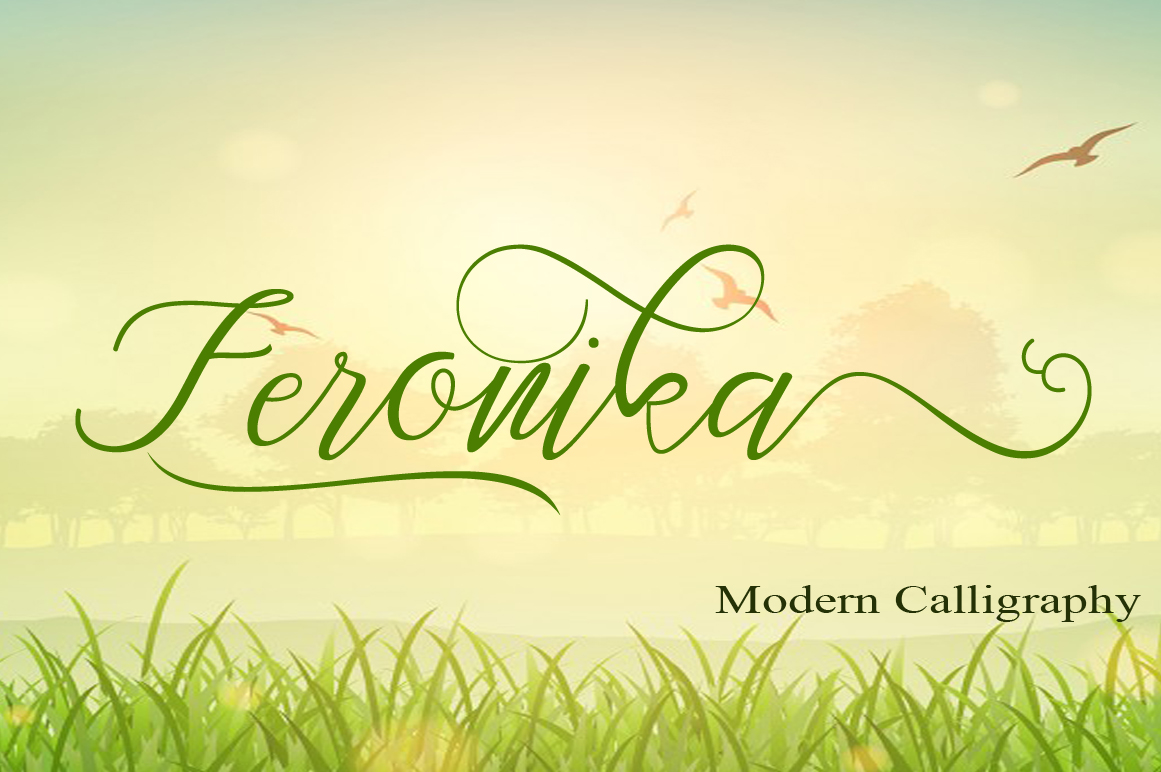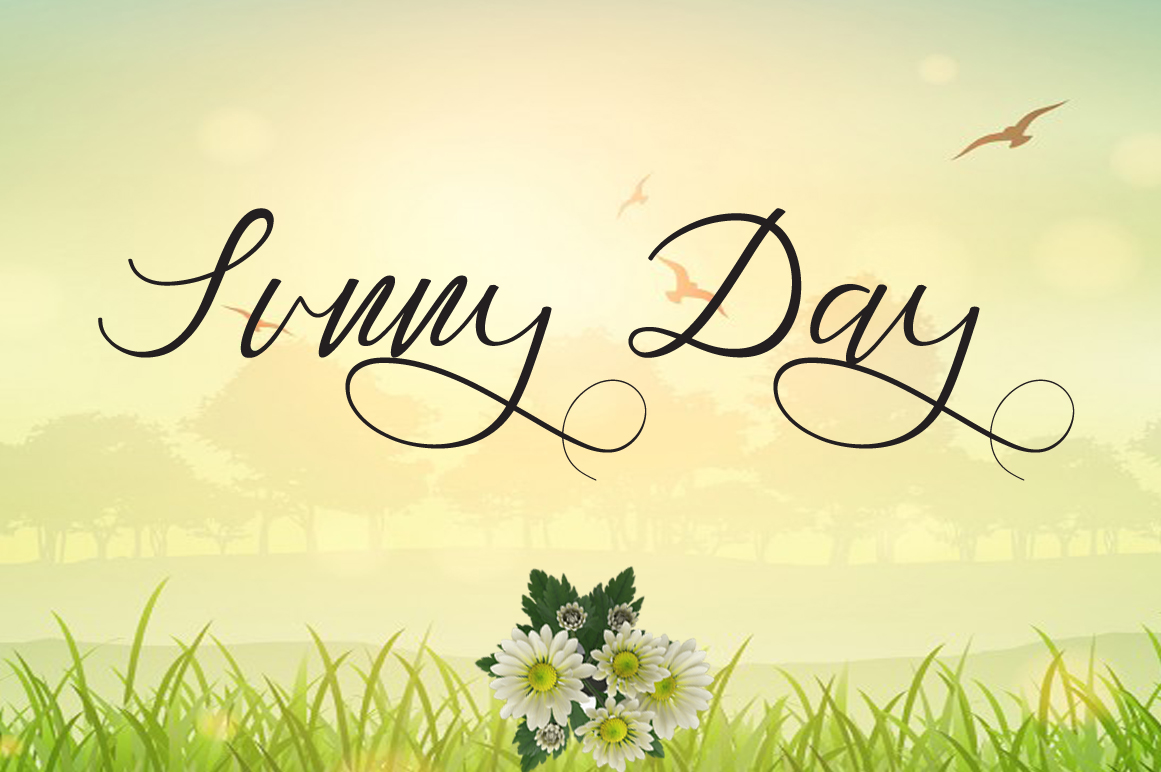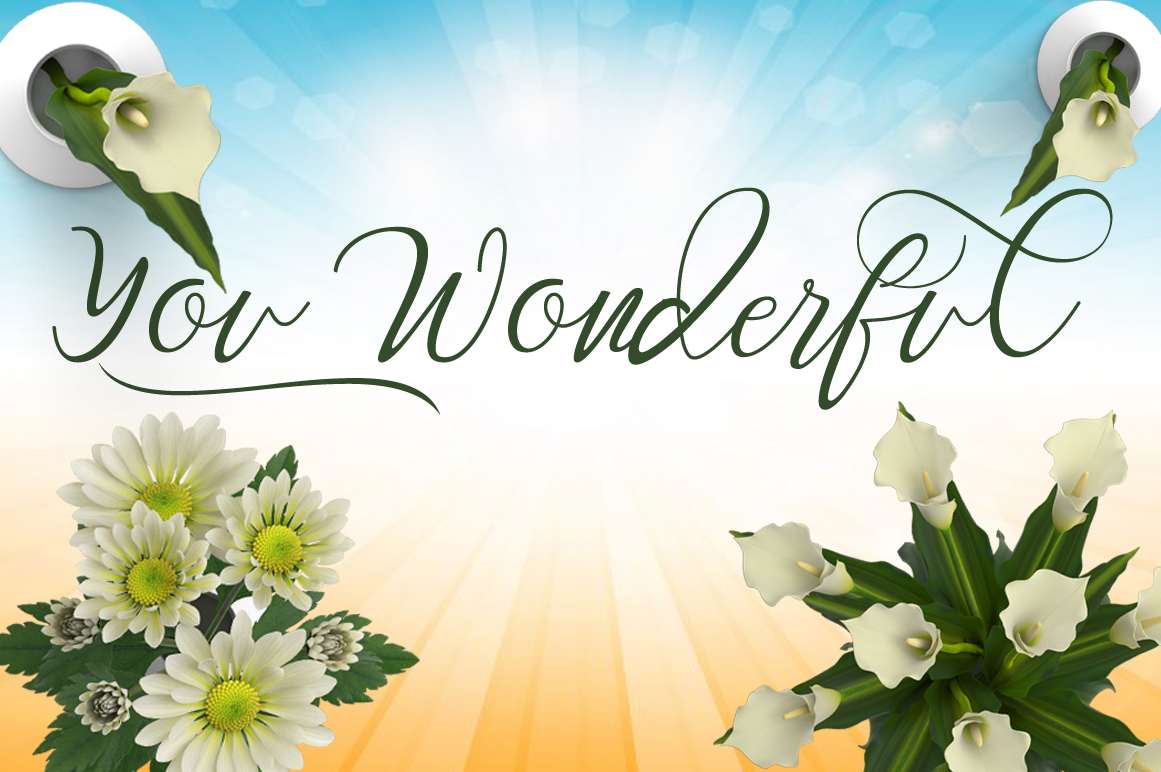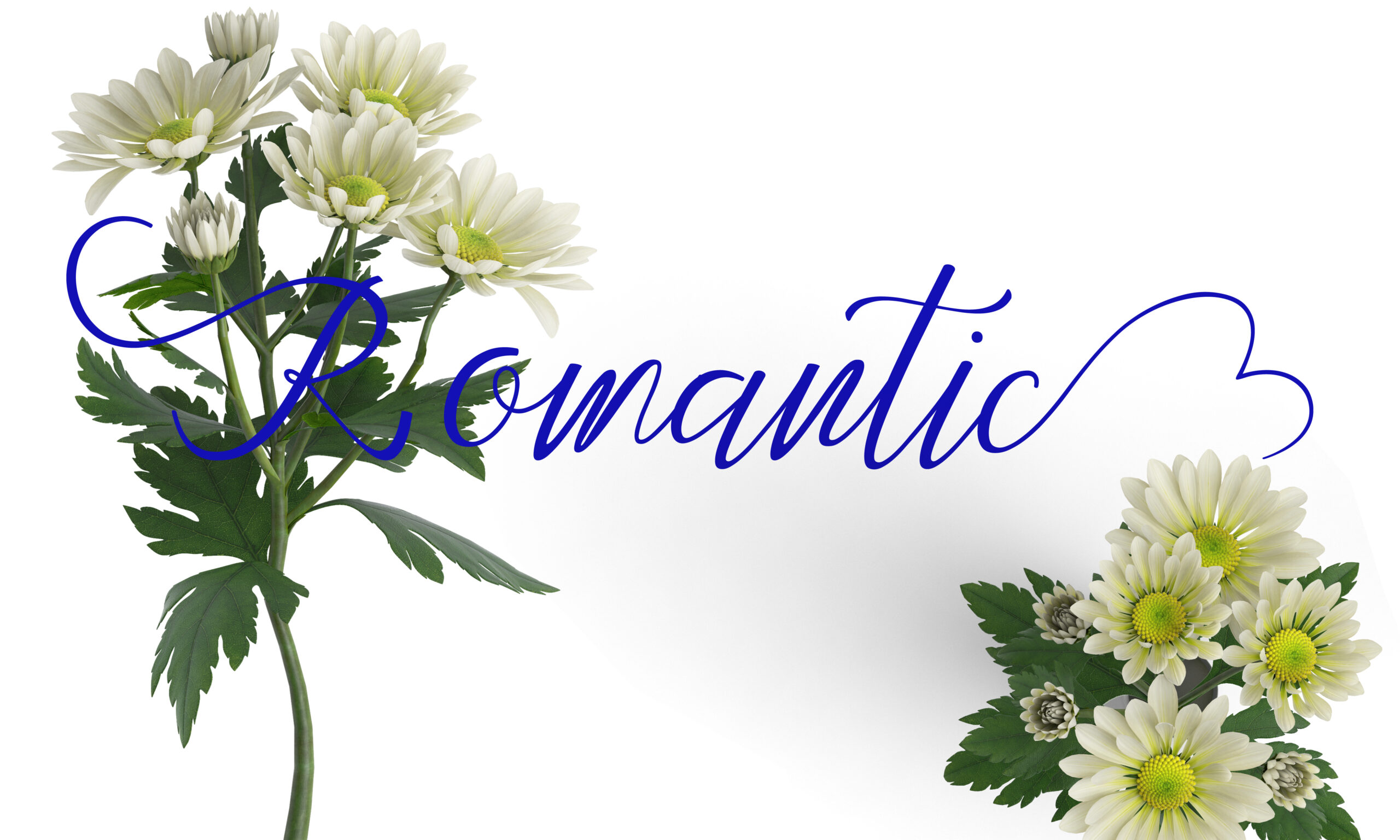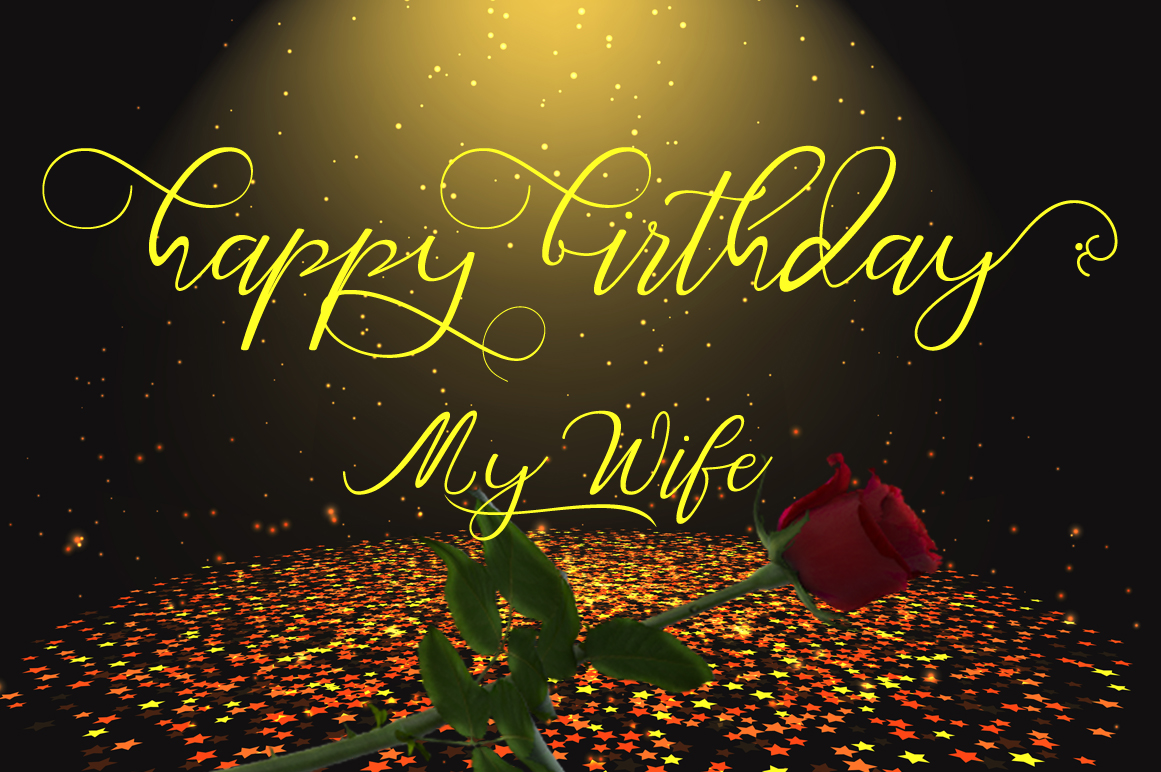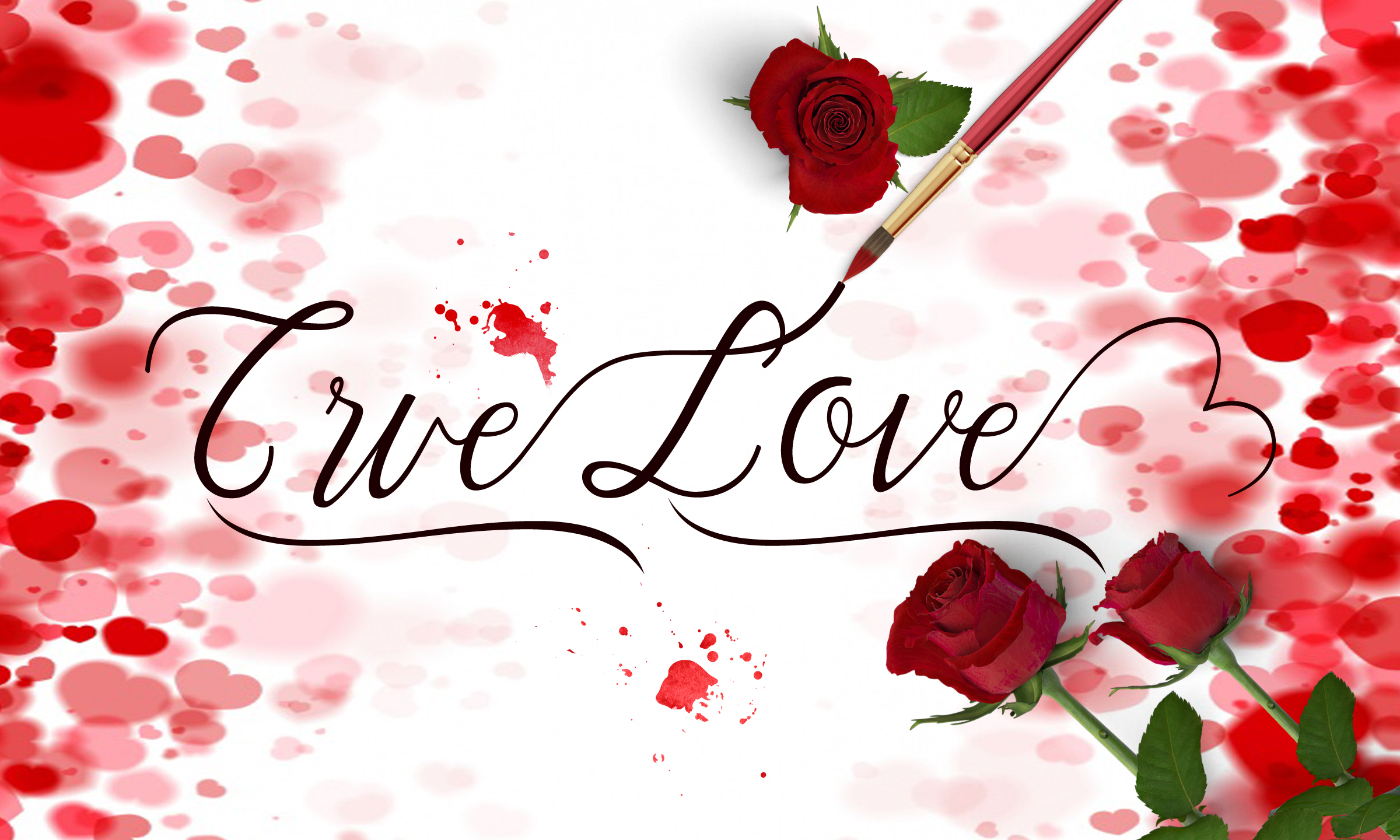
Feronika Font
Feronika is a smooth & elegant calligraphy font with a modern coating. It’s great for many purposes such as invitations, cards, signs & other projects that require a gentle, personal touch.